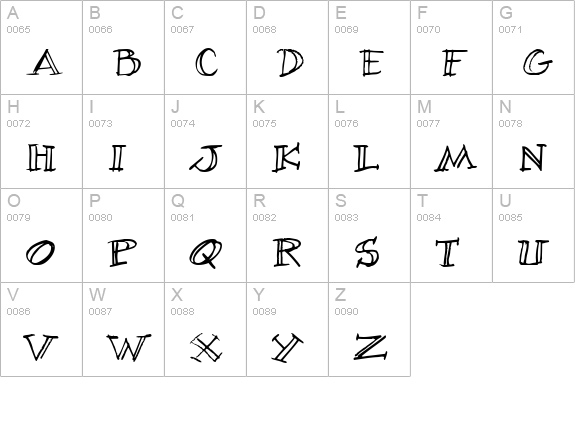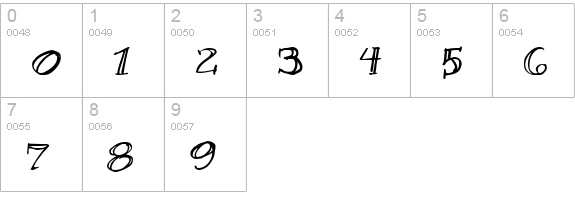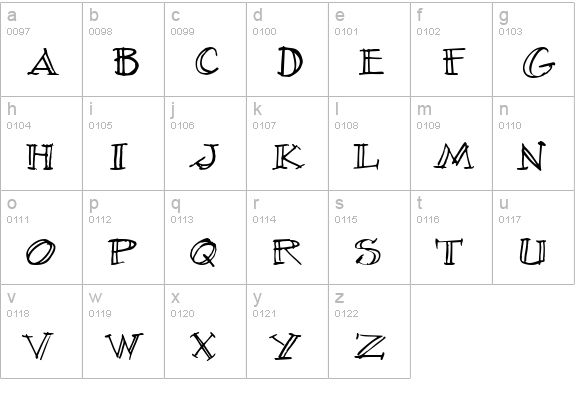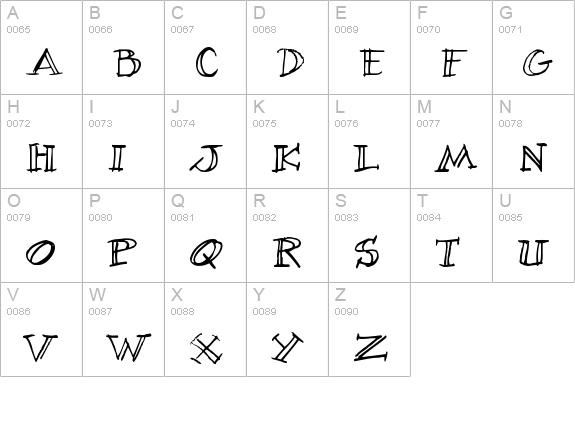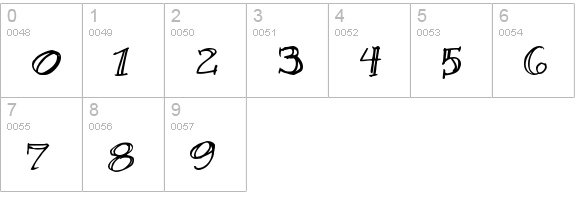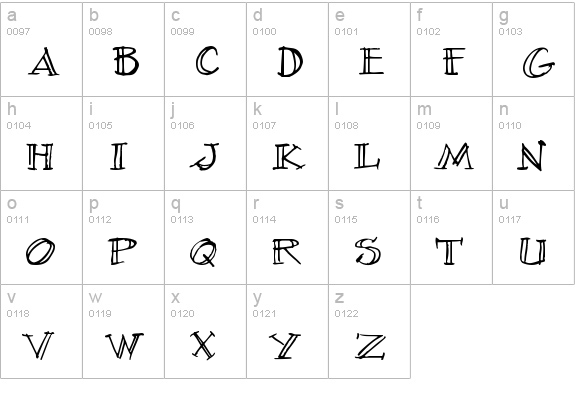
Village Idiot BB font is a whimsical and quirky typeface that exudes a playful charm. With its uneven letterforms and charmingly off-kilter design, this font captures the essence of a lovable village idiot. Each letter is carefully crafted to have a unique touch, adding a delightful hand-drawn feel to your projects. Whether you're designing a lively poster, creating eye-catching headlines, or adding a touch of whimsy to your branding, Village Idiot BB font is the perfect choice. Its distinct character and unconventional style will make your designs stand out from the crowd and bring a smile to anyone who sees them. The best part? Village Idiot BB font is available for free download at FontsMarket.com. You can easily access this font and start using it in your projects without any cost. It's a fantastic opportunity to add a touch of playful charm to your designs without breaking the bank. So, why wait? Download Village Idiot BB font now and let your creativity run wild. Embrace the quirkiness and charm of this delightful typeface, and watch as your designs come to life with a unique and captivating personality.